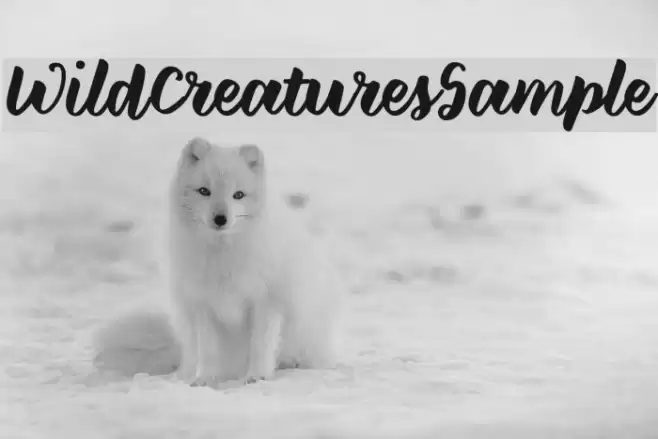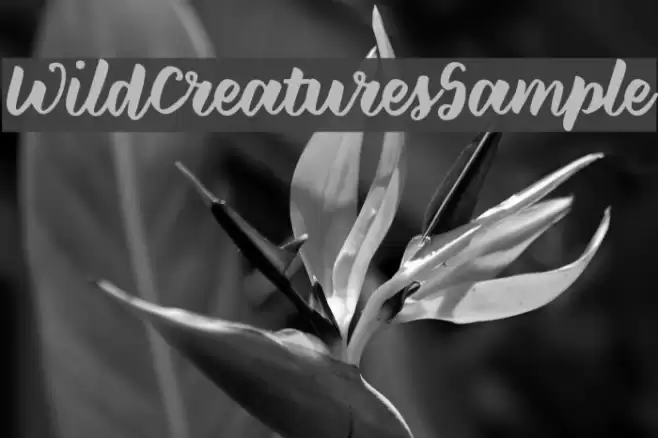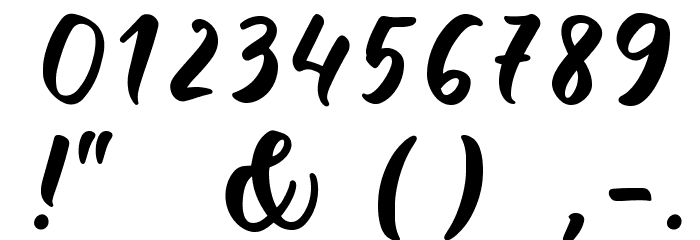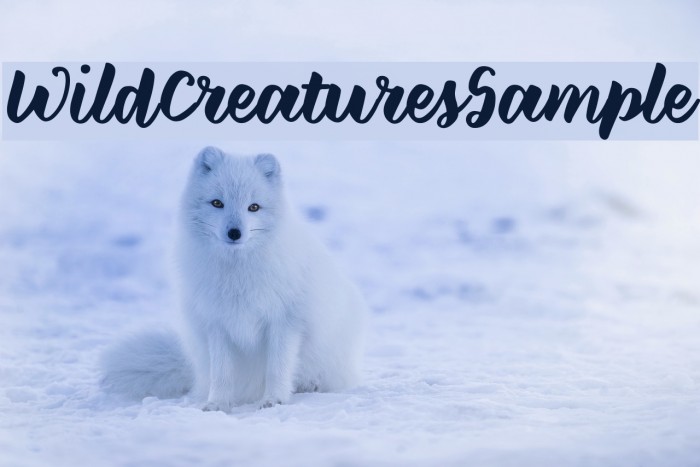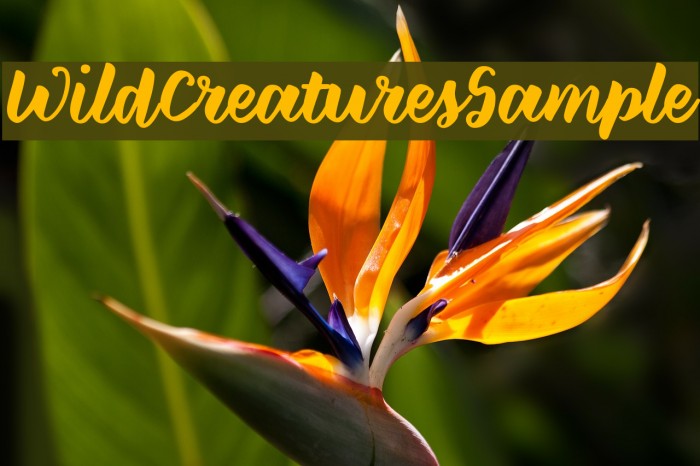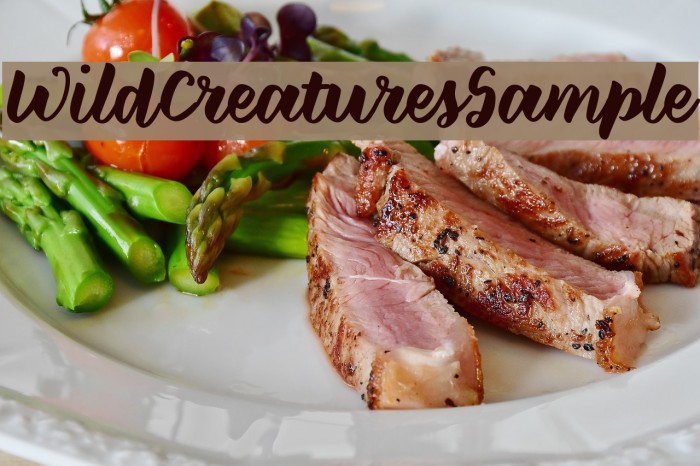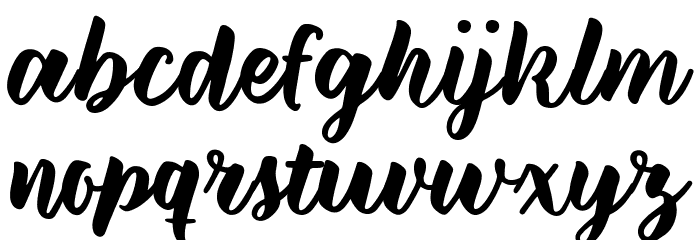
WildCreaturesSample Font
WildCreaturesSample Description
This font features a bold and expressive script style, characterized by its fluid and dynamic strokes. The letters are connected in a cursive manner, giving it a handwritten feel. The uppercase letters are slightly more formal, while the lowercase letters exhibit a playful and casual appearance. The numbers and special characters maintain the same lively style, ensuring consistency throughout. The overall design is energetic and modern, making it suitable for projects that require a personal touch.
A bold, expressive script font with a modern, handwritten style from Uncategorized fonts.
- Proposed Projects: Ideal for branding, invitations, greeting cards, and social media graphics where a personal and lively touch is desired.
- Overall Style: Modern, Decorative
- Use Case: Logos, Headlines, Invitations